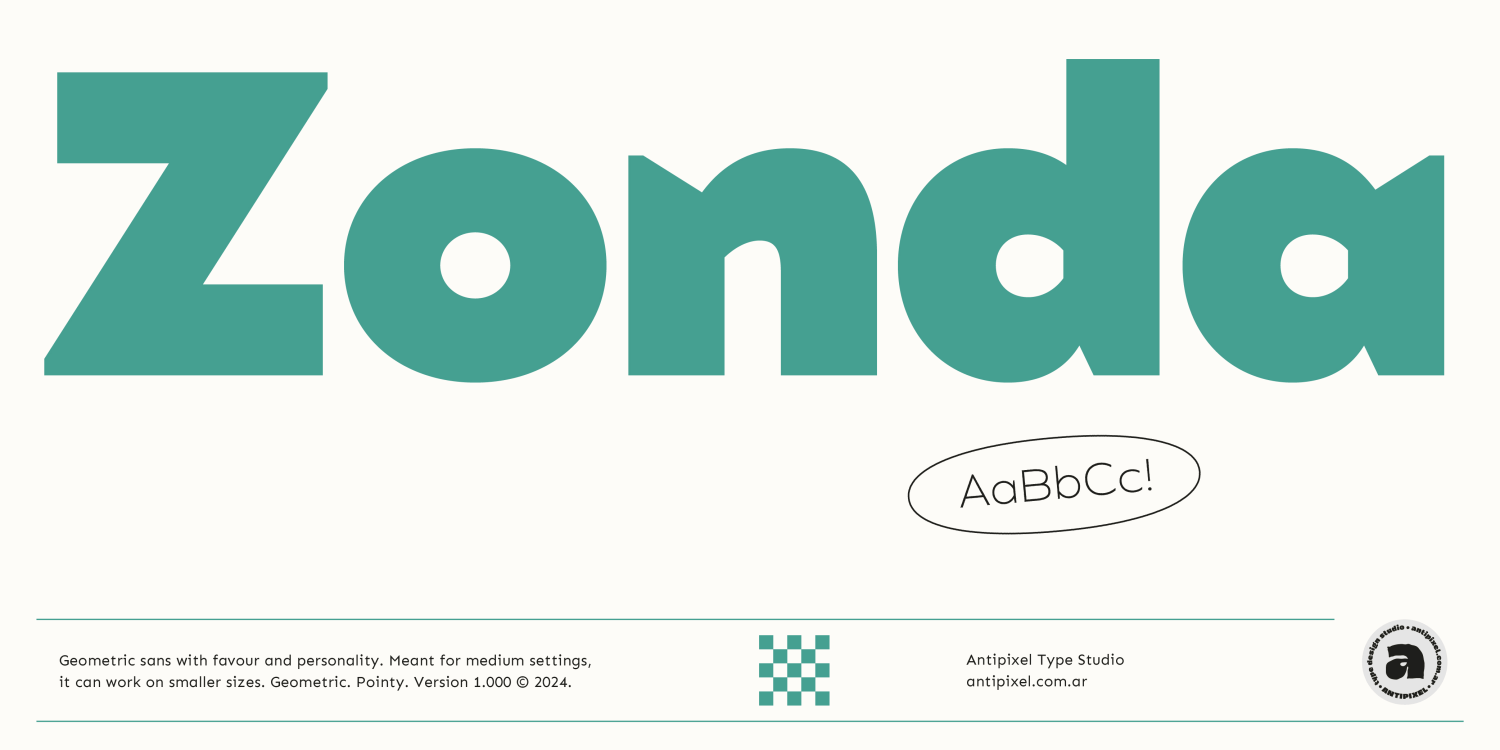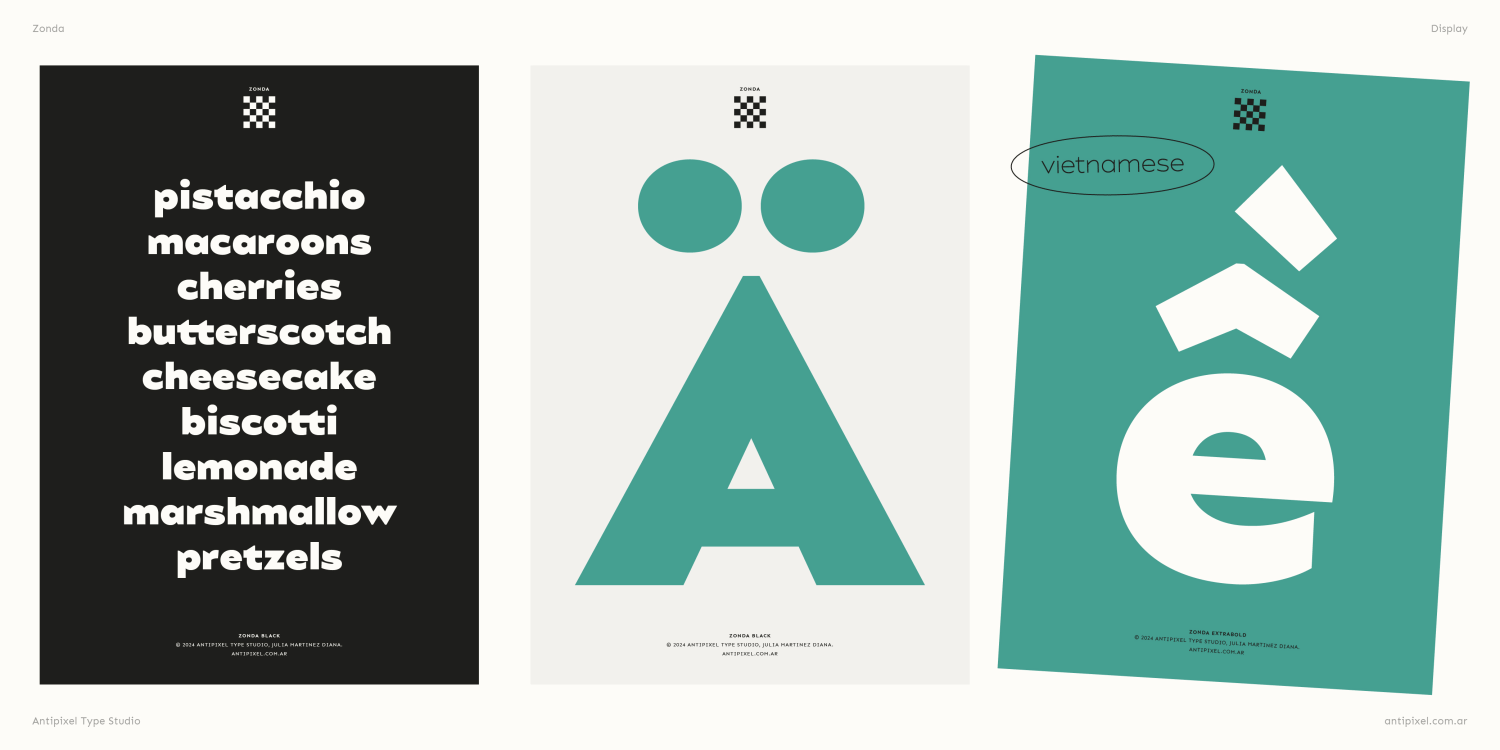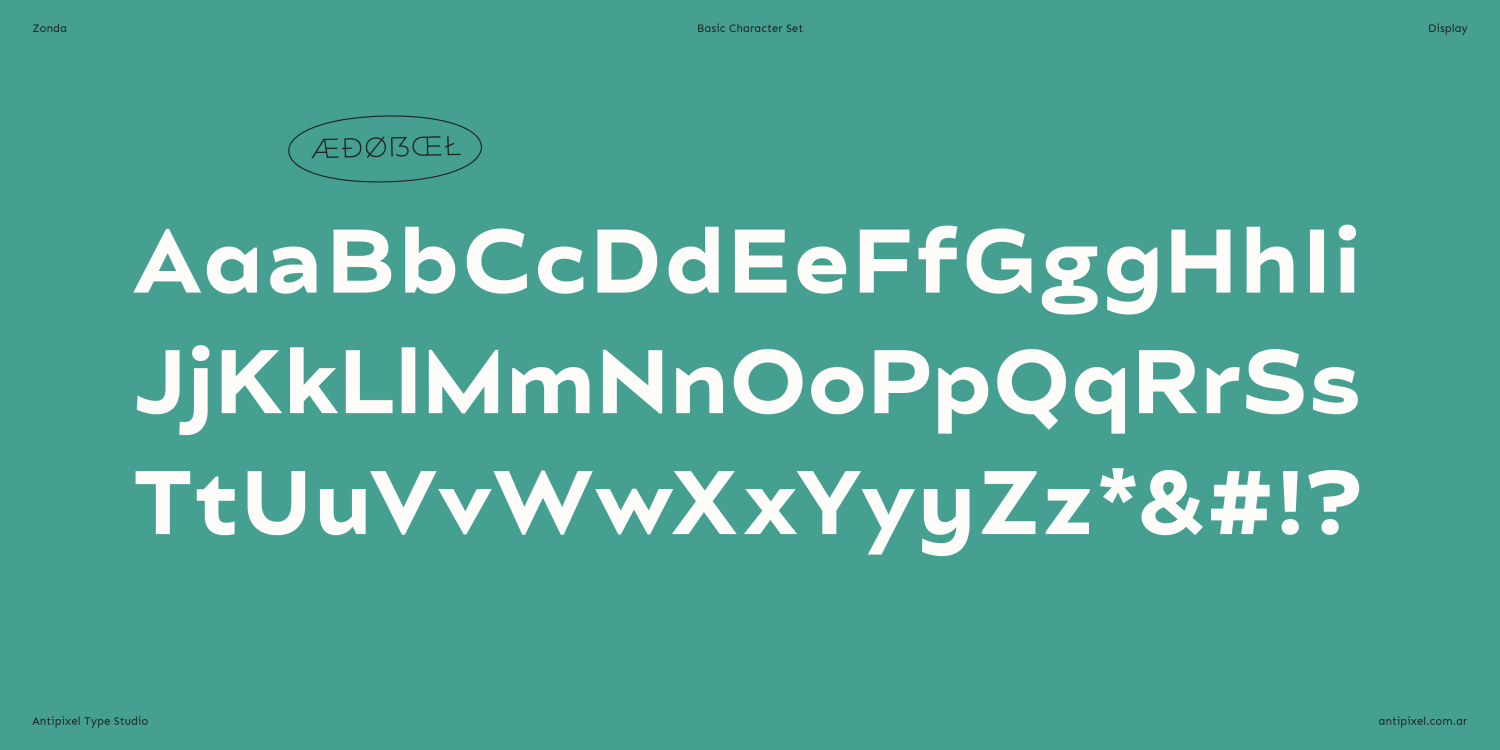
About Zonda
Introducing Zonda, a geometric, modern, clean and classic typeface full of personality. Zonda consists of 7 weights, ranging from ExtraLight to Black, allowing versatility and emphasis in any design. With its perfect blend of circular and triangular…